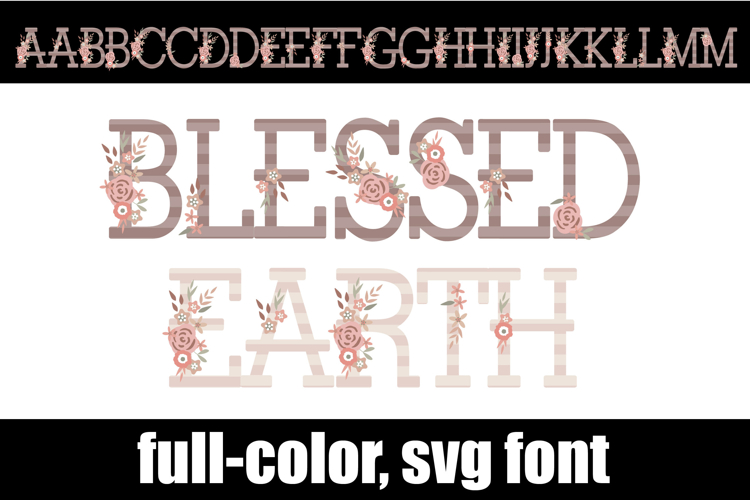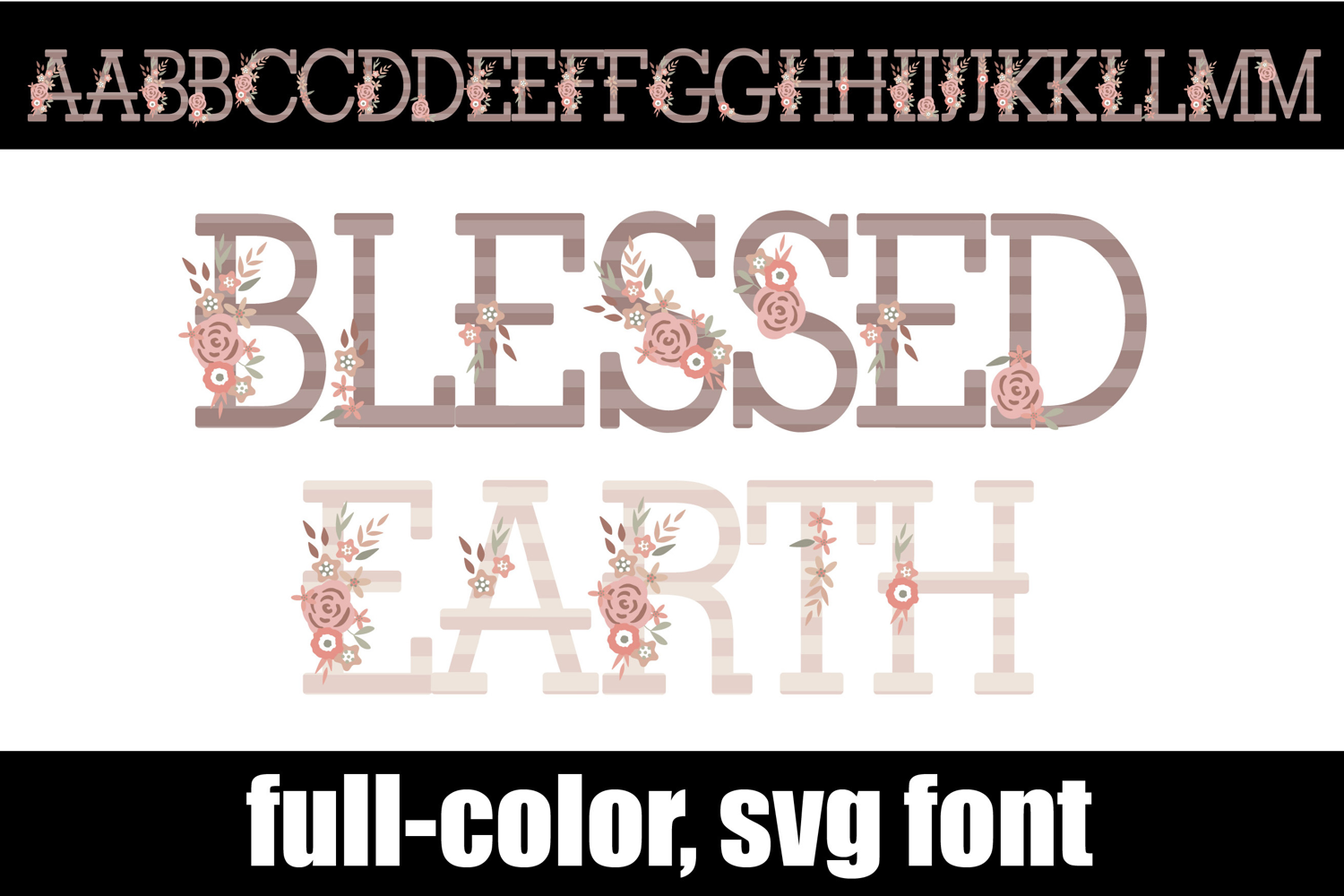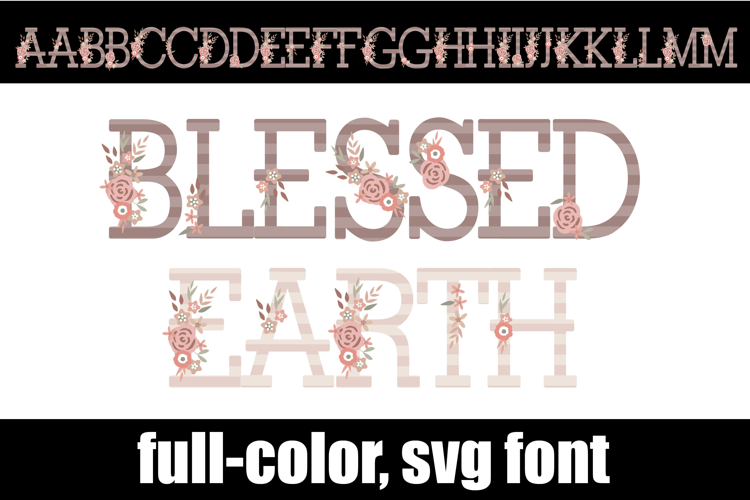
Blessed Earth Color Font
This full-color, serif font is in a pale color palette with beautiful florals throughout. There is an alt case of additional colors of each letter that you can access through your system's character map.